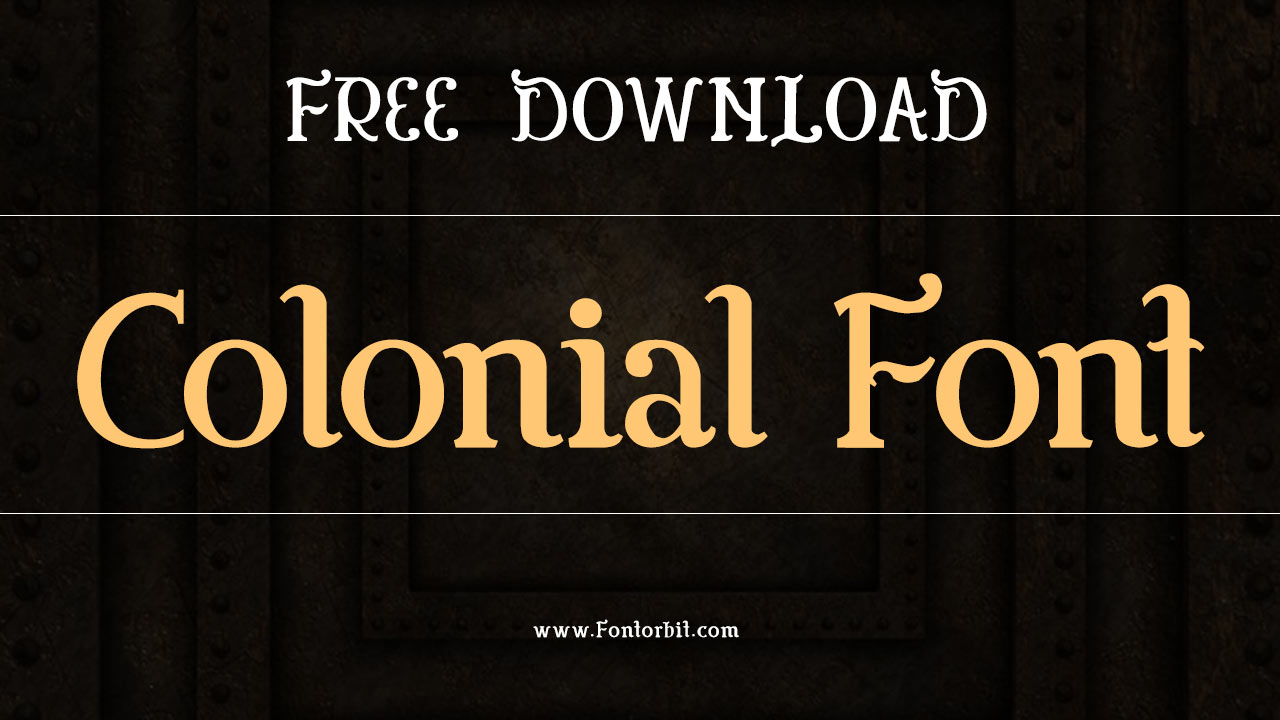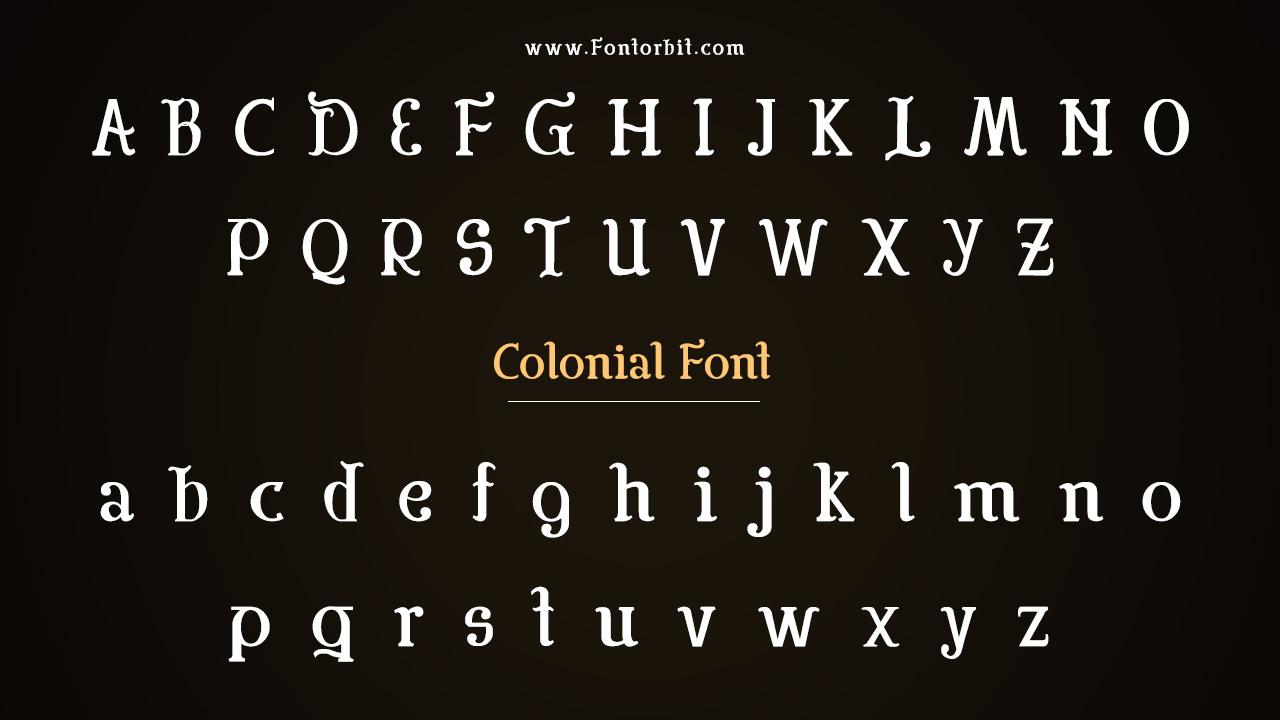
Colonial Font is a classic typeface that embodies the spirit of early American typography. It features ornate and decorative elements reminiscent of colonial architecture and print design.
Designed by Uan Casco over the years, these fonts capture the elegance of the colonial era while offering modern versatility for contemporary design projects. The Colonial Font family includes several styles that enhance its usability across different media.
Colonial Family Includes
Colonial fonts are characterized by vintage aesthetics and can be used in formal and creative designs. The following is a list of notable font families that feature colonial-style typefaces:
- Colonial SemiBold
- Colonial Bold
- Colonial Italic
- Colonial Regular
- Colonial ExtraLight
- Colonial Light
- Colonial Book
Colonial fonts are versatile and can enhance the aesthetic appeal of various projects. They work well in settings that require an old-world charm. Their use is often seen in:
- Historical Documents
- Book Covers
- Restaurant Menus
- Event Flyers
- Promotional Materials
Colonial fonts are a fantastic choice for anyone looking to imbue their work with a sense of history and character. Whether you’re designing invitations, branding materials, or decor items, these fonts can provide the perfect touch of elegance and tradition.
1.What Occasions Are Suitable For Colonial Fonts?
Colonial fonts are ideal for weddings, historical events, branding projects, and decorative prints.
4.Are Colonial Fonts Legible?
While they can be ornate, many colonial fonts are designed for legibility, especially when used in larger sizes.
5.What Is The History Behind Colonial Fonts?
Colonial fonts emerged during the early American period, influenced by European typography, particularly from England and France.
6.Can I Mix Colonial Fonts With Modern Fonts?
Yes, combining colonial fonts with modern sans-serif fonts can create a unique and appealing contrast.
7.How Can I Incorporate Colonial Fonts Into My Designs?
Use colonial fonts for headlines, invitations, or any design element that requires a vintage touch.